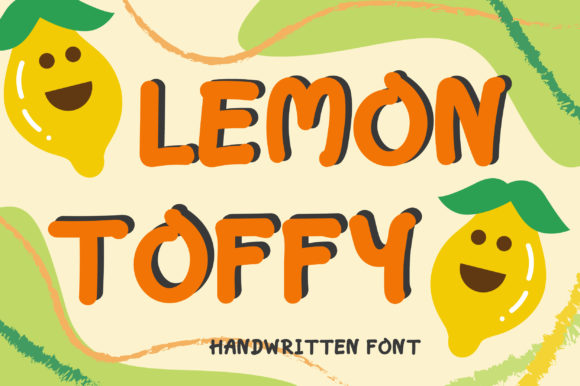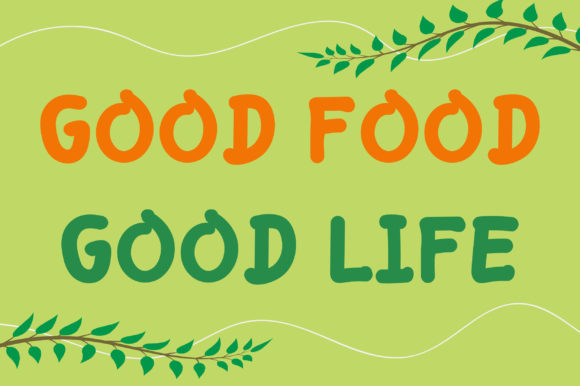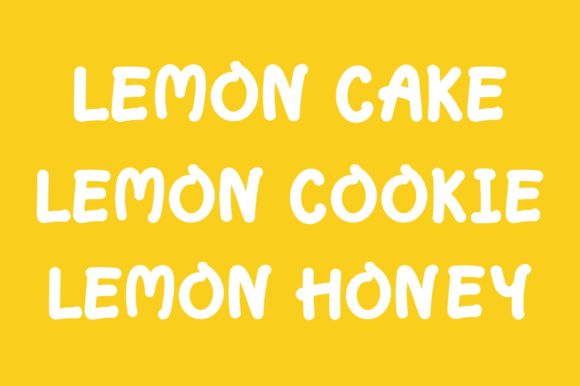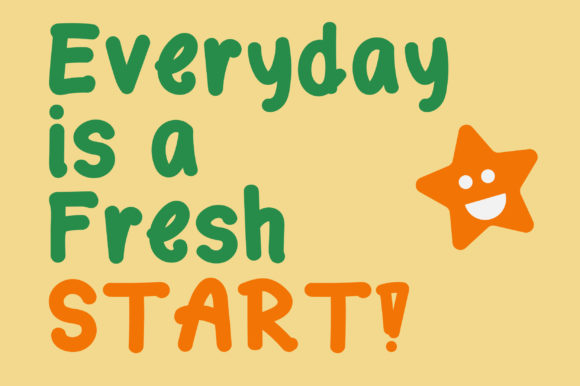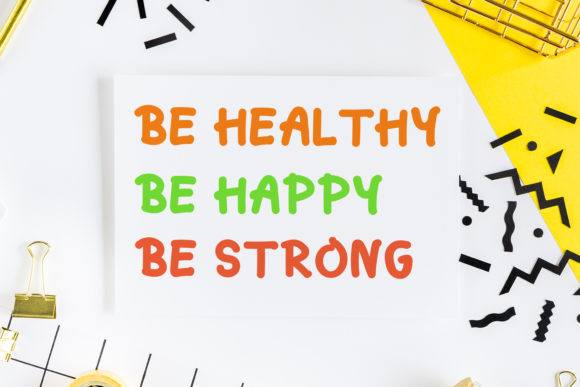
Lemon Toffy Font
About Lemon Toffy Font
Lemon Toffy is a cute and quirky handwritten font. It will elevate a wide range of design projects to the highest level, be it branding, headings, wedding designs, invitations, signatures, logos, labels, and much more!